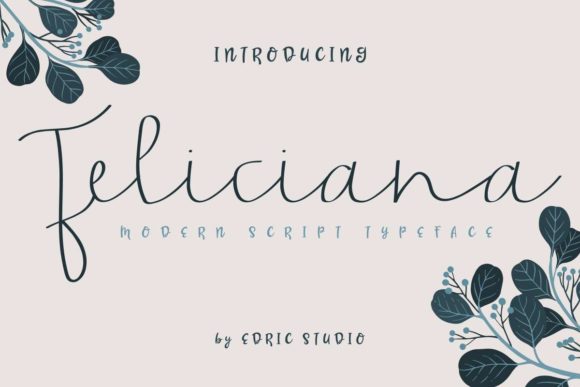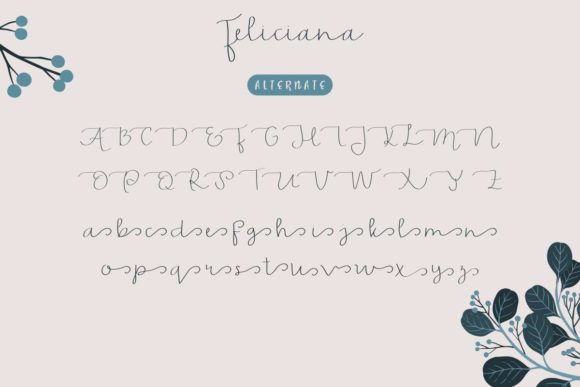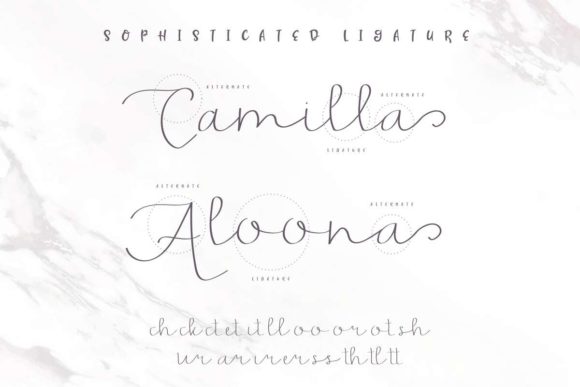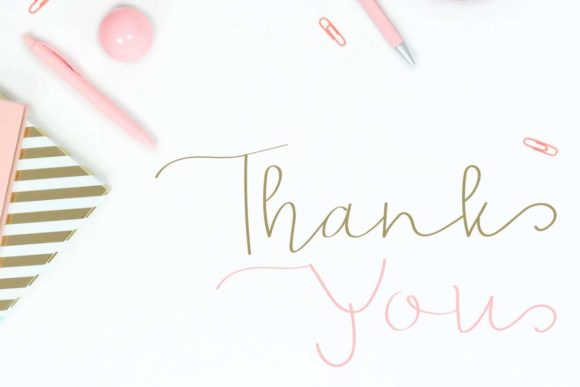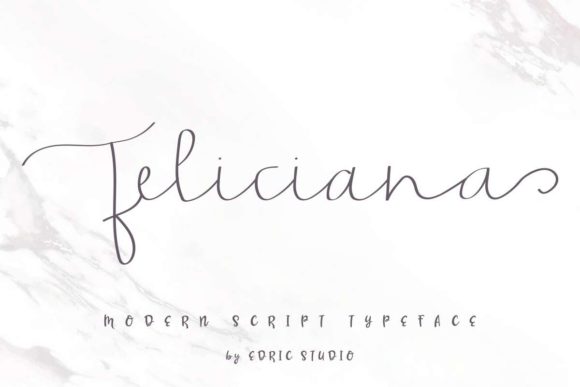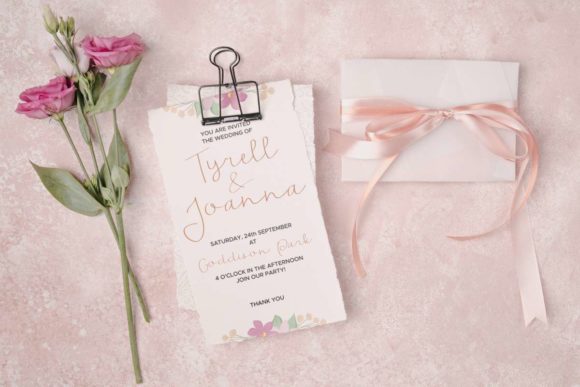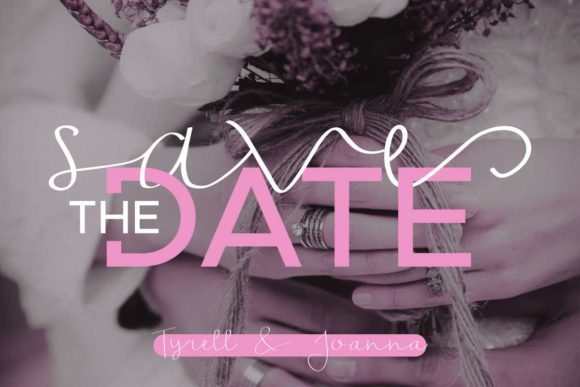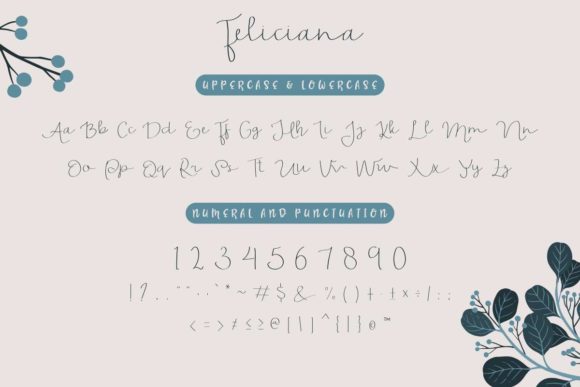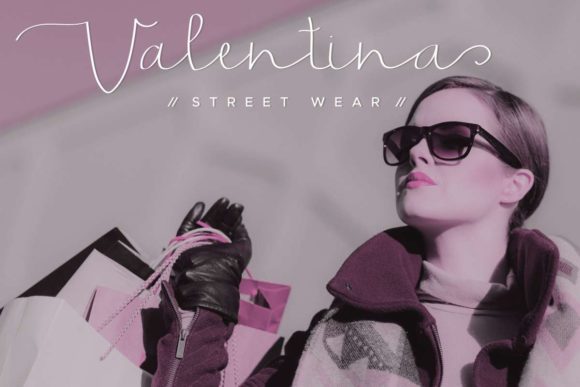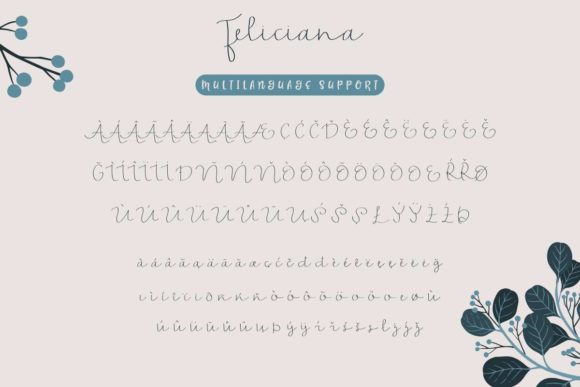
HomeScript FontsFeliciana Font Script Fonts Feliciana Font FacebookXPinterestWhatsApp Feliciana Font Poster 2 Feliciana Font Poster 3 Feliciana Font Poster 4 Feliciana Font Poster 5 Feliciana Font Poster 6 Feliciana Font Poster 7 Feliciana Font Poster 8 Feliciana Font Poster 9 Feliciana Font Poster 10 Feliciana Font Poster 11 Feliciana Font Poster 12 About Feliciana Font Feliciana feels elegant, yet authentic. This gorgeous script will take any design project to the highest level. DOWNLOAD ON CREATIVE FABRICAThis font is sold and delivered by Creative Fabrica. Font Canyon may earn a commission if you buy through this link. People also explored Broken Heart Font Daisy Font Brittany Amastry Font Dazzling Night Font Love Monday Font Laila Script Font Christmas Moment Font Batriq Font Rusticy Font 333 0 TagsFeliciana Font Previous articleGreeting FontNext articleAghmeeta Font LEAVE A REPLY Cancel reply Comment: Please enter your comment! Name:* Please enter your name here Email:* You have entered an incorrect email address! Please enter your email address here Website: Save my name, email, and website in this browser for the next time I comment. Personal Use Free Nouradilla Script Free Version Personal Use Free Read more about this font Einstaint Personal Use Free Read more about this font Rogueland Personal Use Free Read more about this font Lixdu Personal Use Free Read more about this font BLOG Transform Your Website: Elevate Your Typography with 7 Best Web Font Generators Are you ready to transform your website's typography from ordinary to extraordinary? Great! Today, we're diving into the world of web font generators, which... The 10 Best Handwriting Fonts to Add Personality to Your Designs Free vs Paid Fonts: Why Investing in Premium Fonts Is Worth It Exploring Font Trends